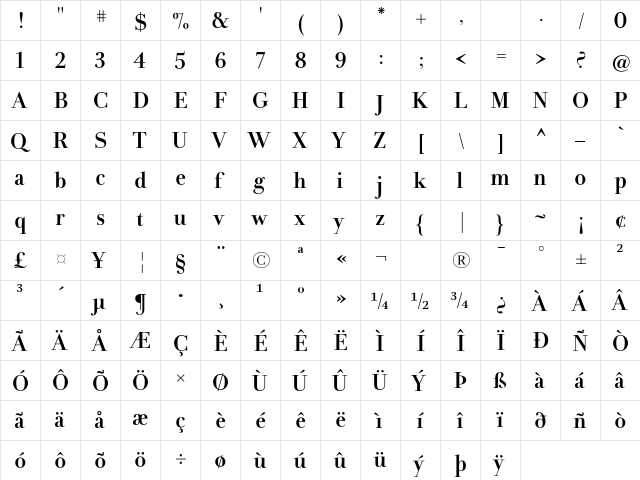
Andrade Pro Bold
| Foundry | Dino dos Santos _DSType |
| Designer | Dino dos Santos |
Design Context for Andrade Pro Typeface
Andrade Pro is a composed and adaptable typeface that performs quietly and consistently across a wide range of design contexts. Its bold stroke weight gives it real presence on the page.